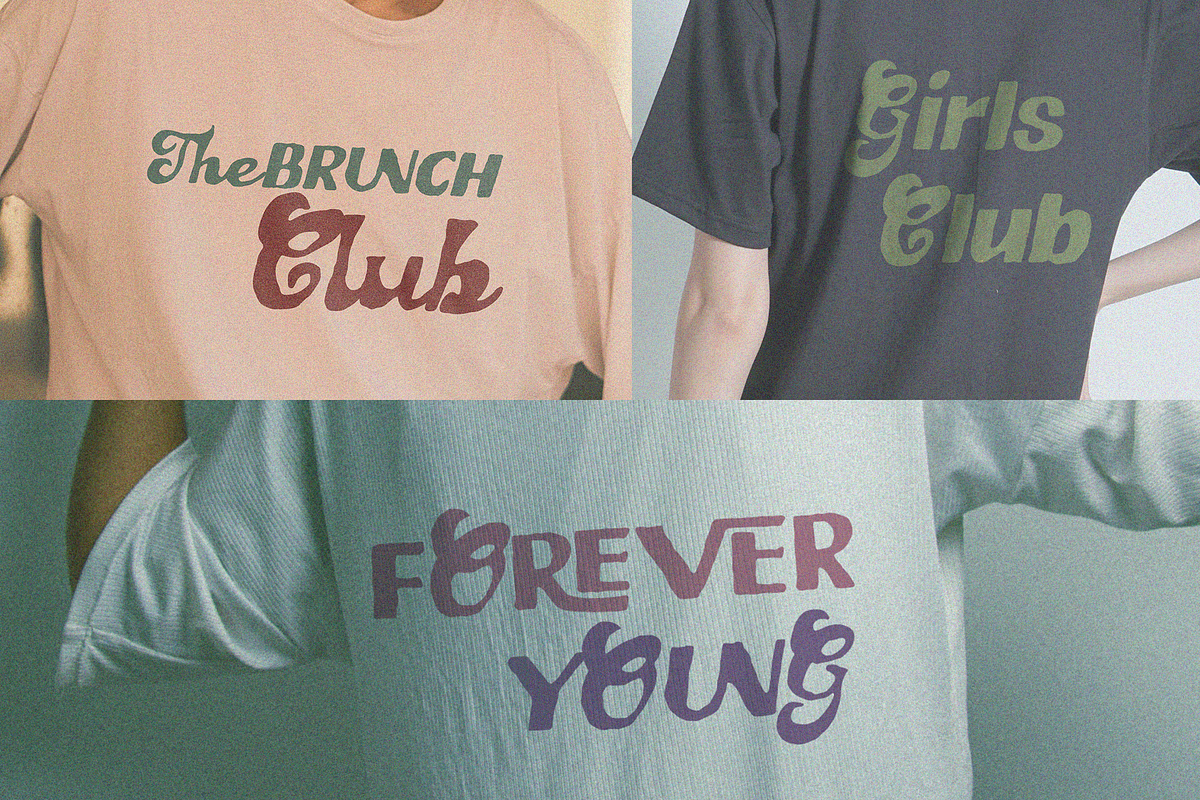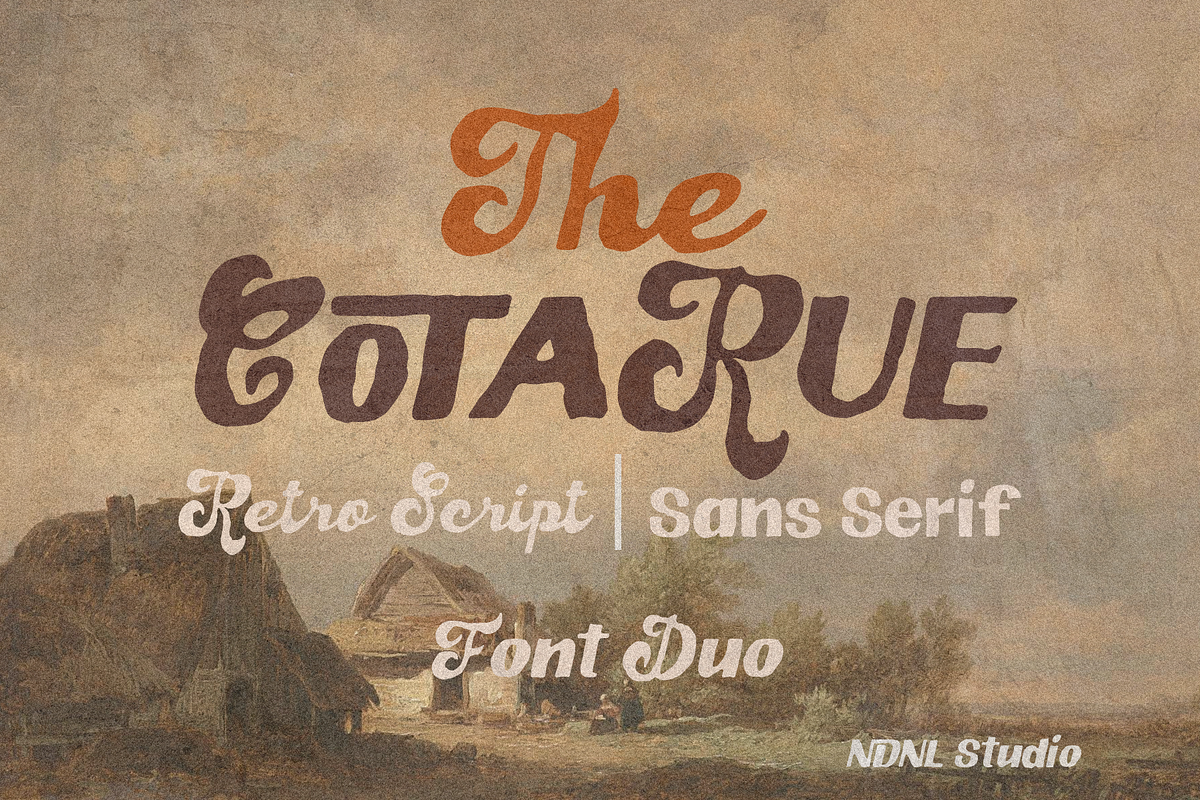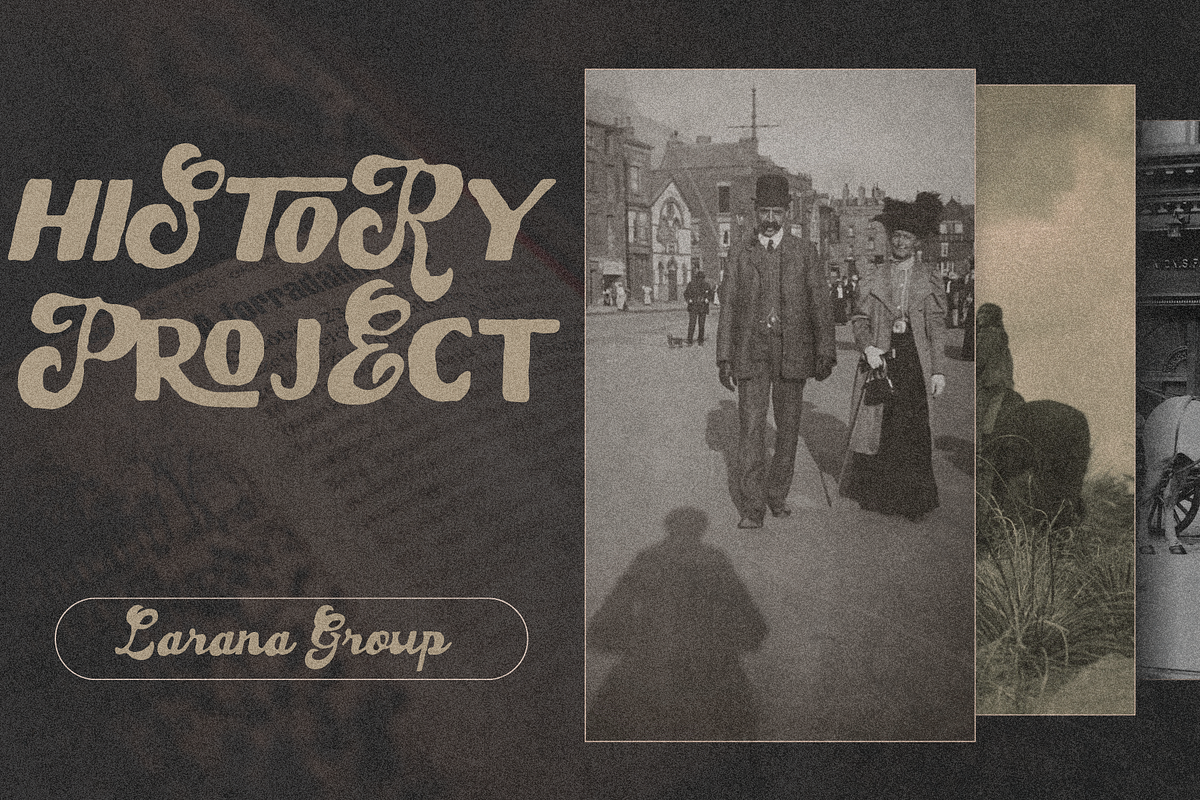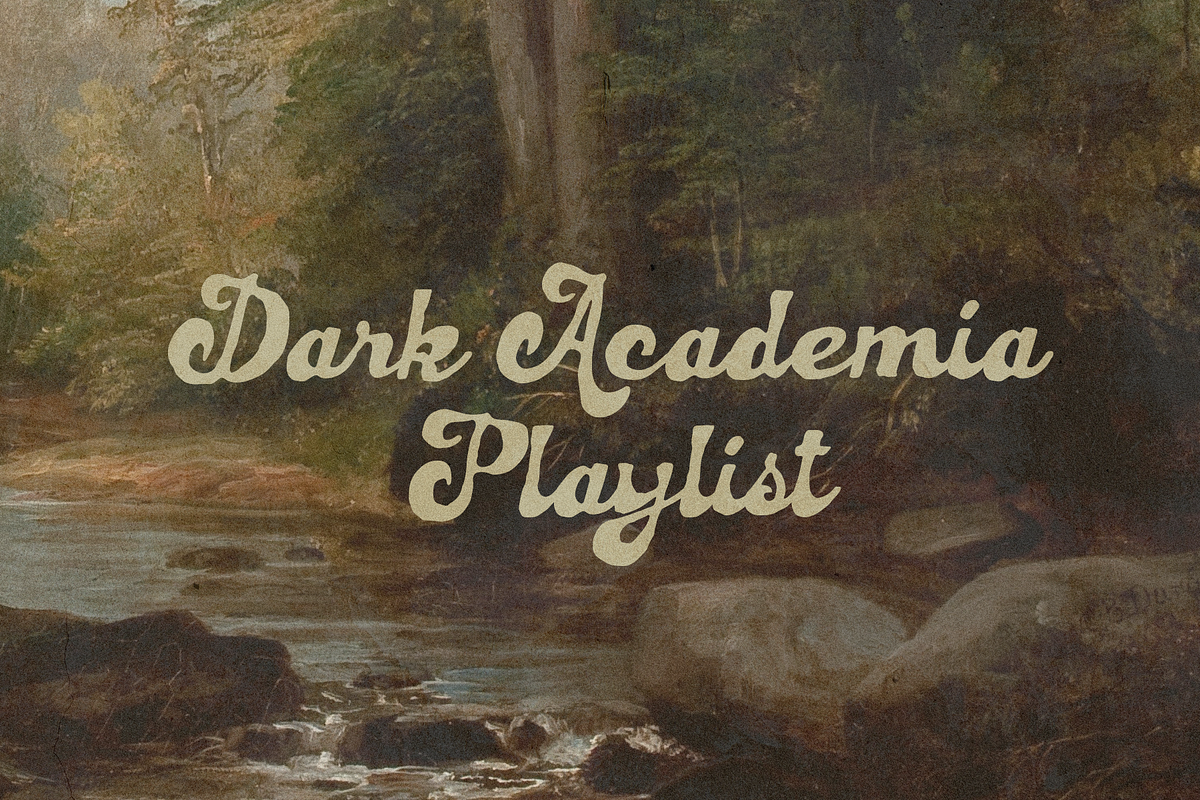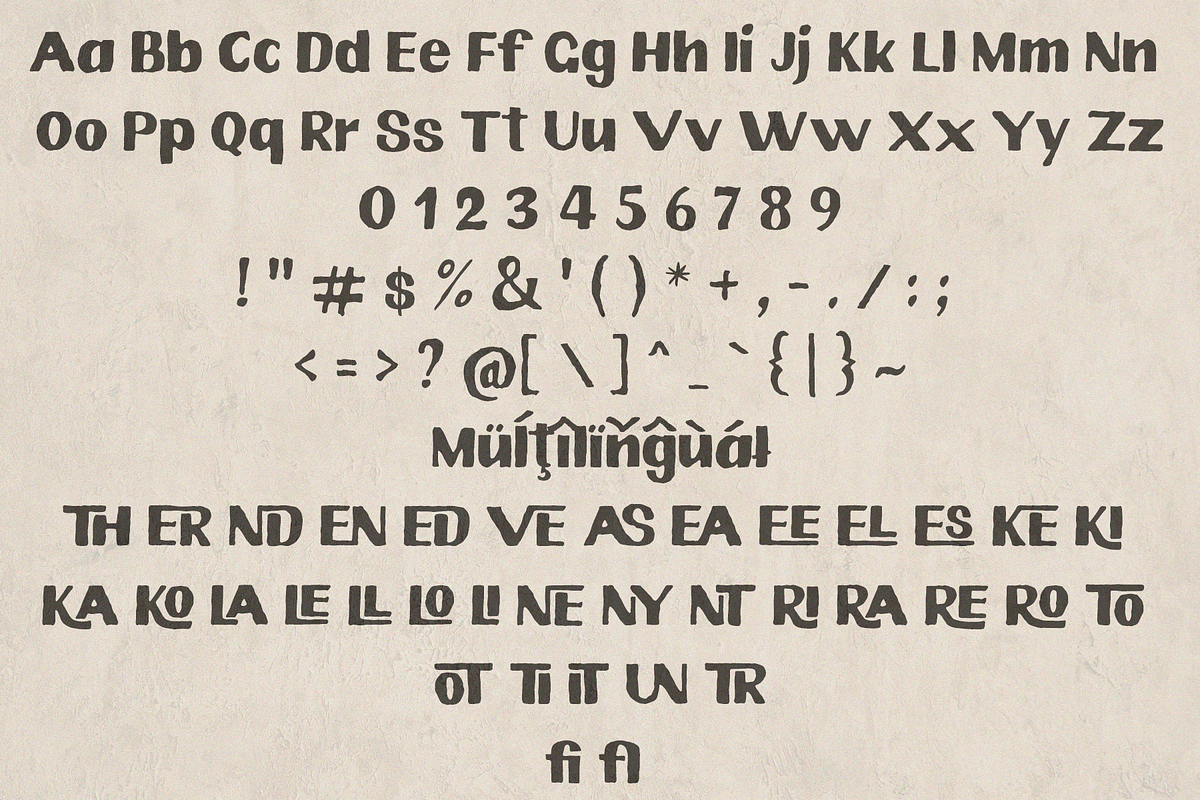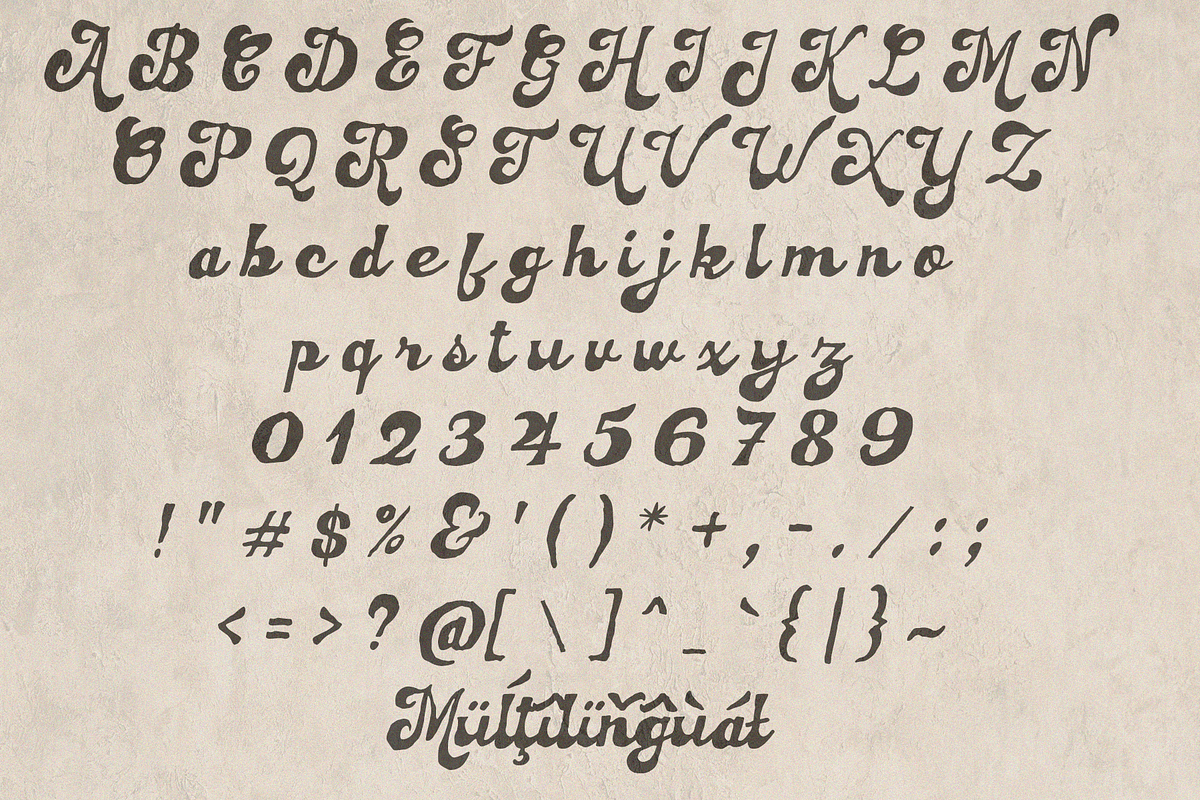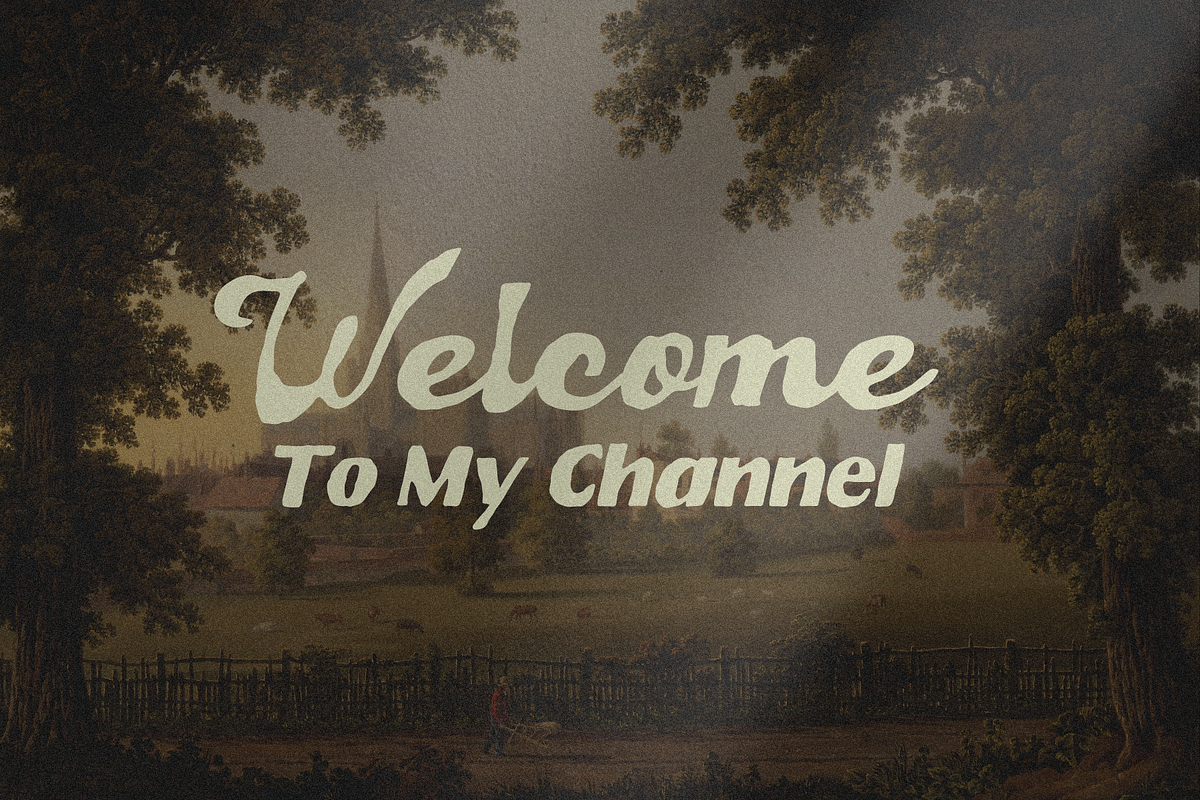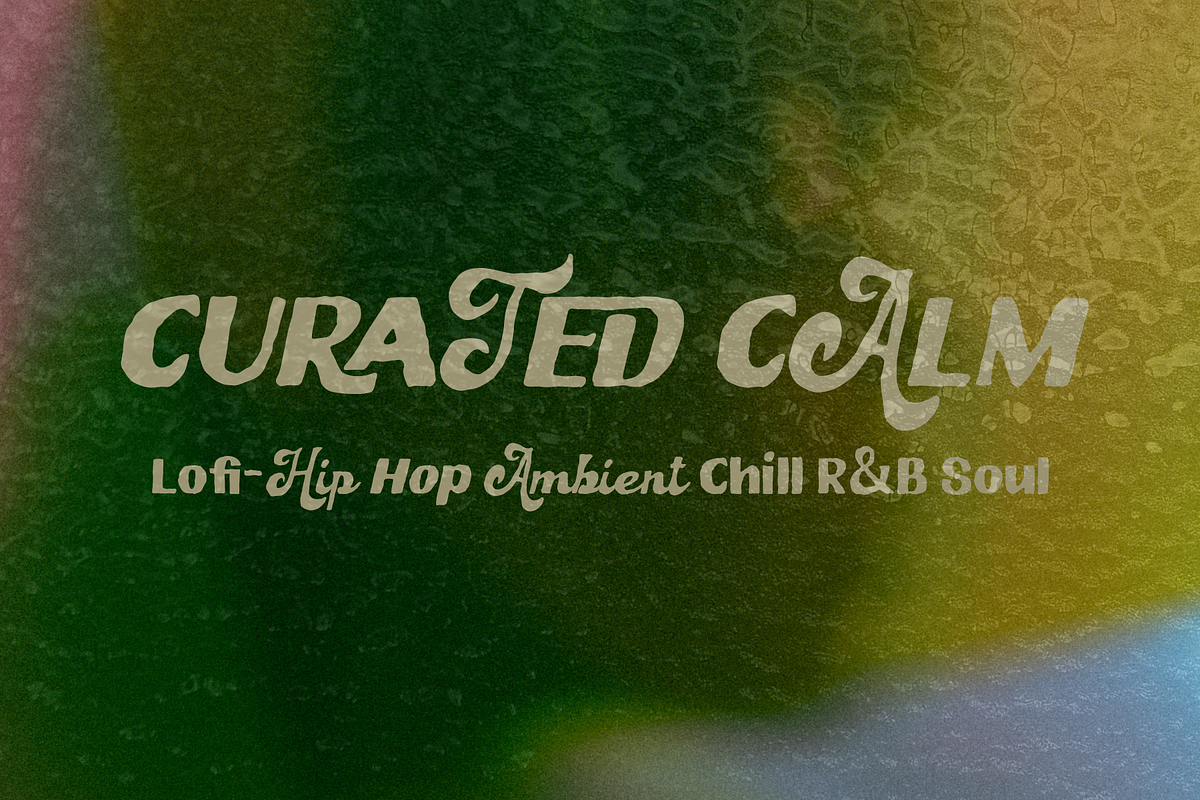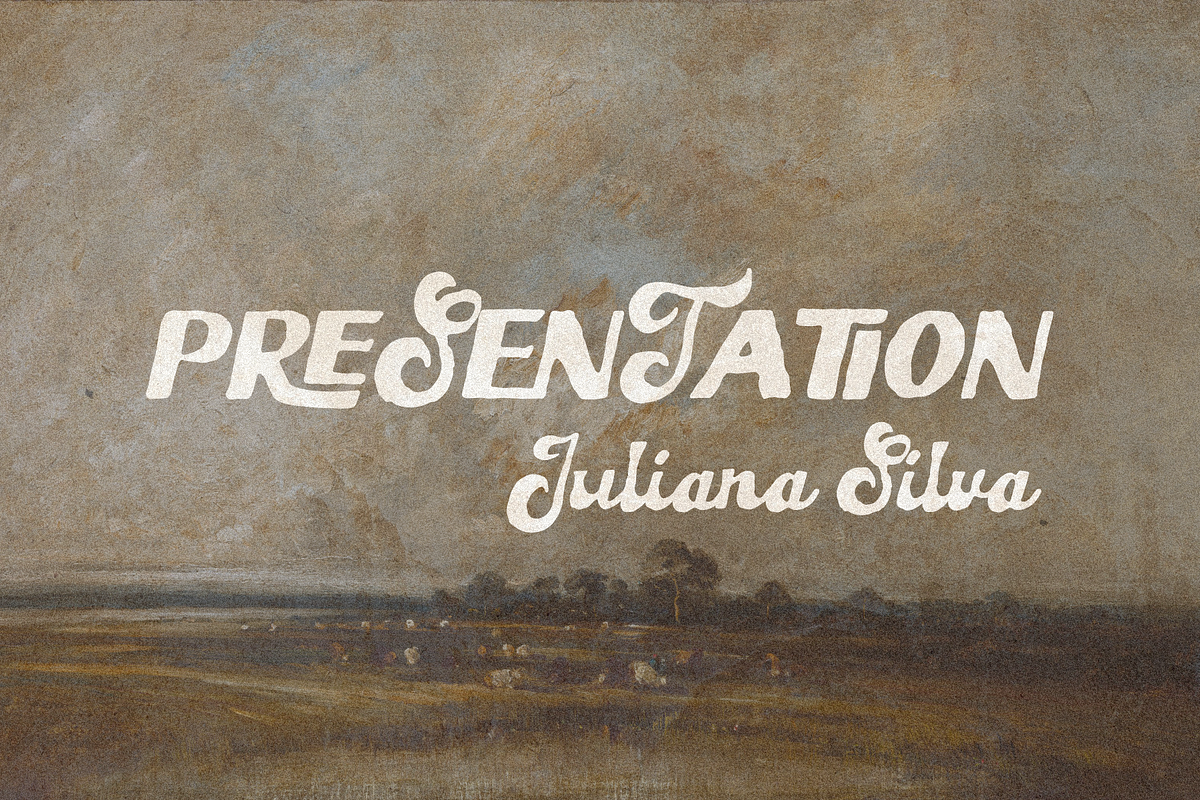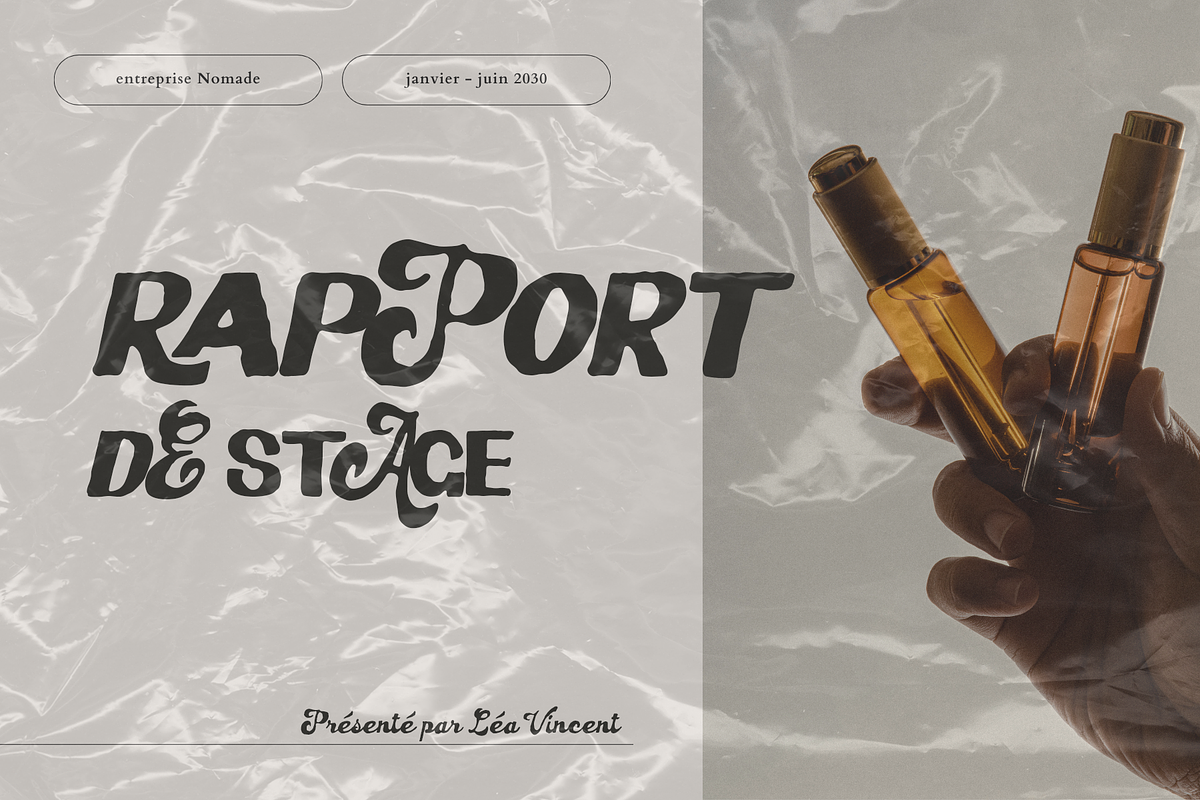
Cotarue – Retro Font Duo
Cotarue is a refined font duo that beautifully blends the elegance of Retro Script with the clean simplicity of Sans Serif. Inspired by nostalgic aesthetics, Cotarue delivers a warm, timeless feel while maintaining strong versatility for modern design needs. This font duo is perfect for branding, posters, packaging, logos, and creative projects with a vintage or handcrafted touch. Cotarue is more than just a typeface—it’s a visual experience filled with character and charm.